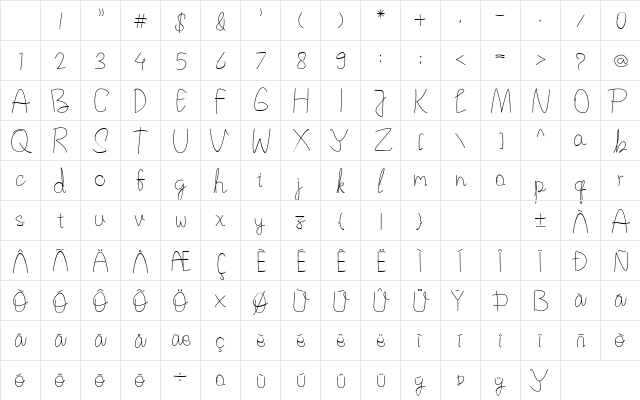
Pletoy is a composed and adaptable typeface that performs quietly and consistently across a wide range of design contexts.
Pro Tip: Use Pletoy in both headline and body roles to test its range before committing to a single application.